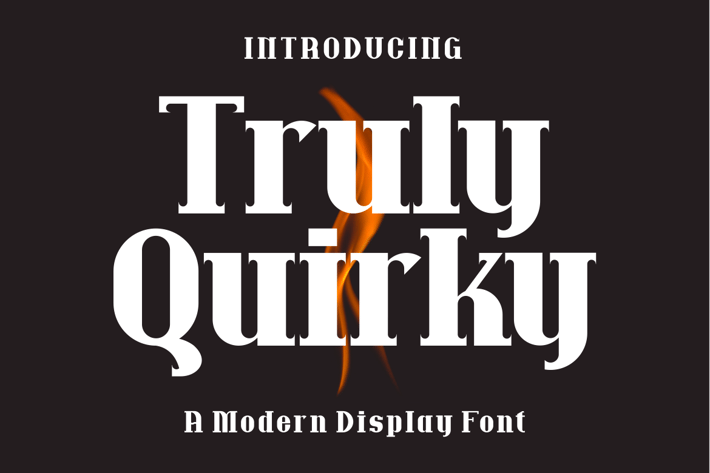
Truly Quirky Font
Introducing our new product Truly Quirky Font - Modern Font
Varelmo Font - Modern Font is a bold and authentic display font. The font is suitable for any branding project like logo, t-shirt printing and many more. outstanding in a wide range of contexts.